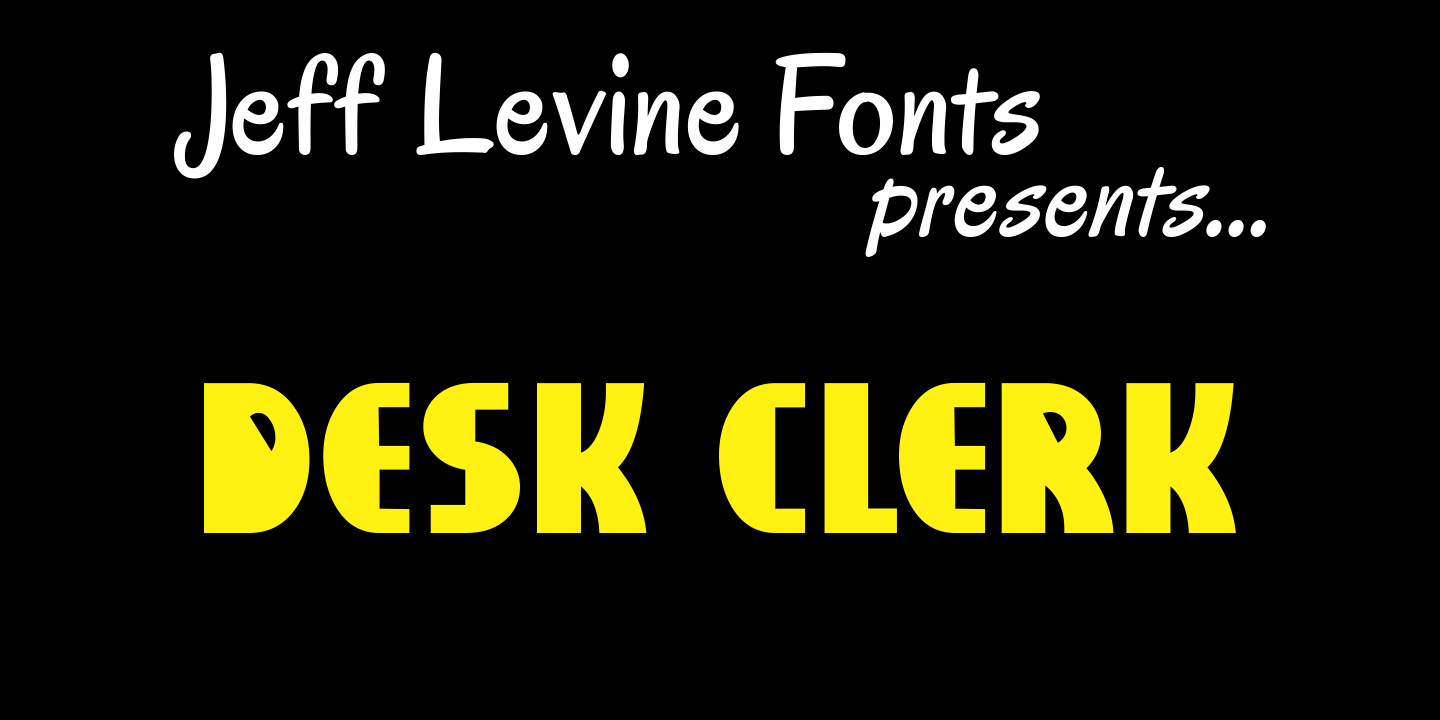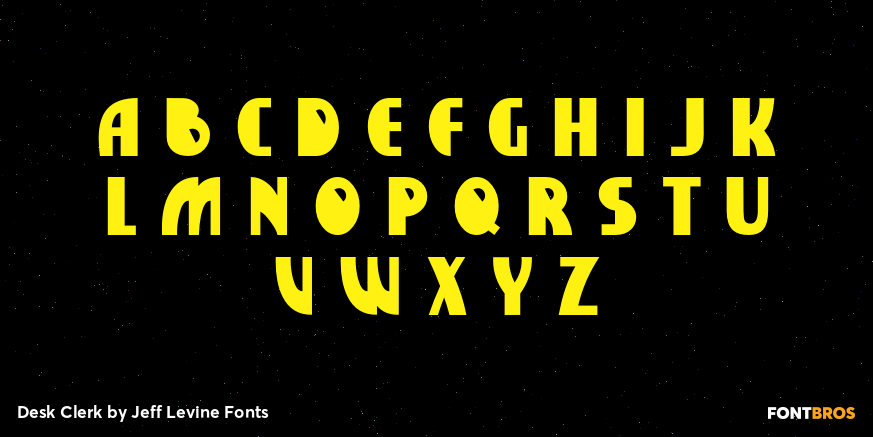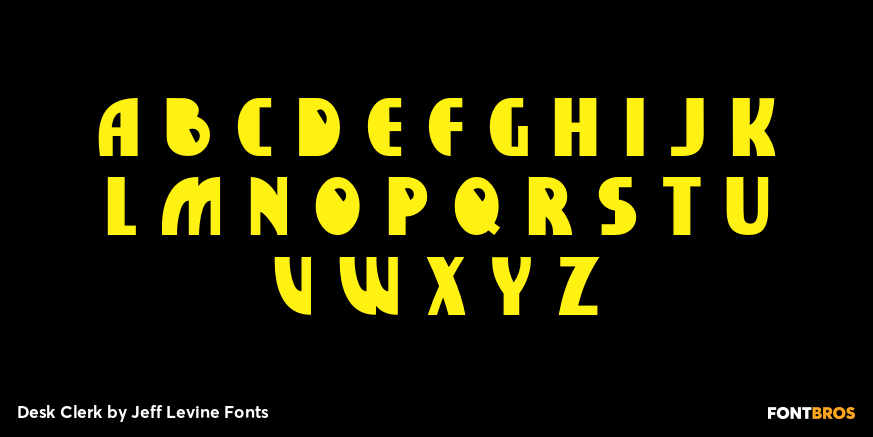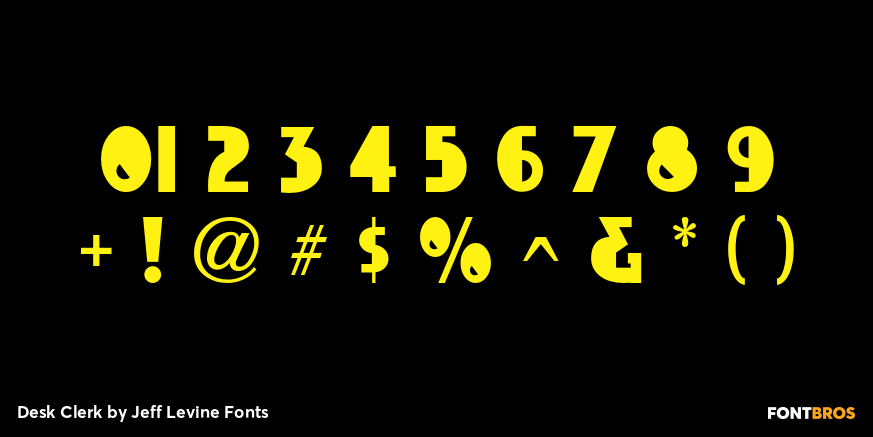
Desk Clerk
Sometimes a font idea can come from the most unlikely place. While watching a DVD of the 1950s TV Sitcom "My Little Margie", Jeff Levine spotted some unusual deco-styled numbers on the floor indicator of the apartment house elevator. Expanding this into a full character set, Desk Clerk JNL is the result.